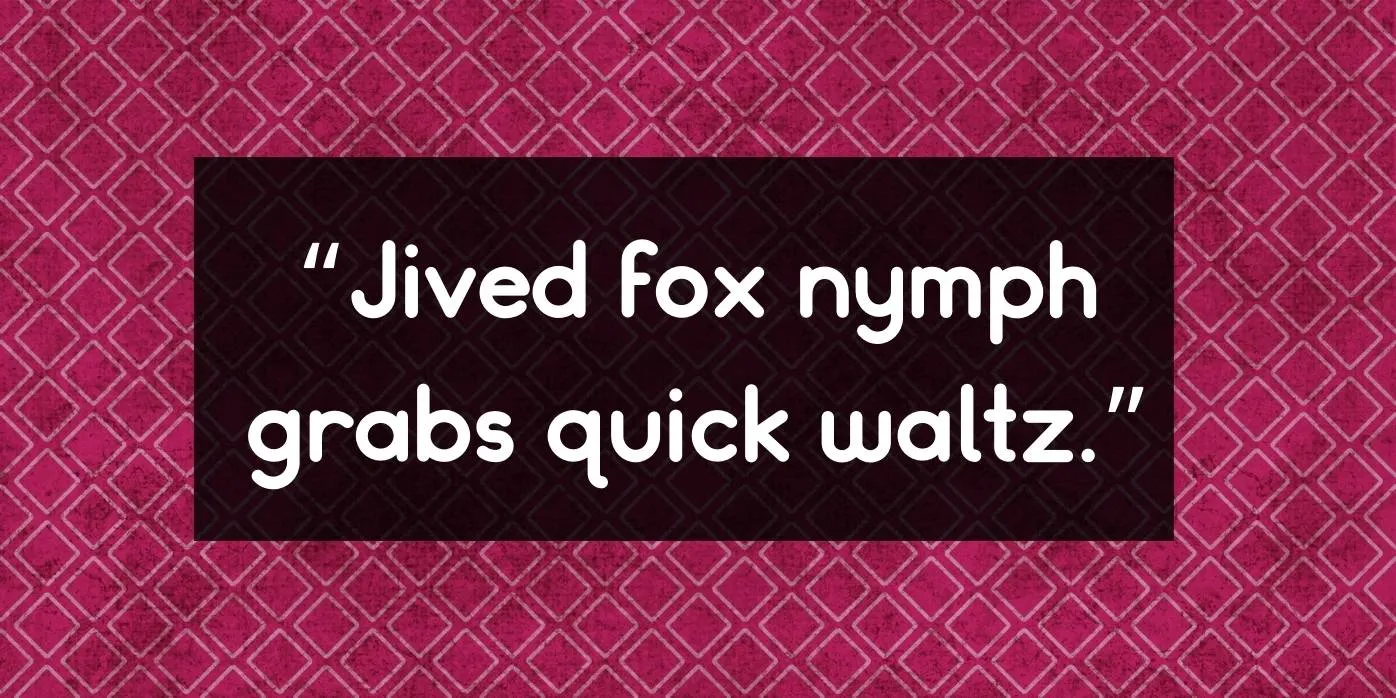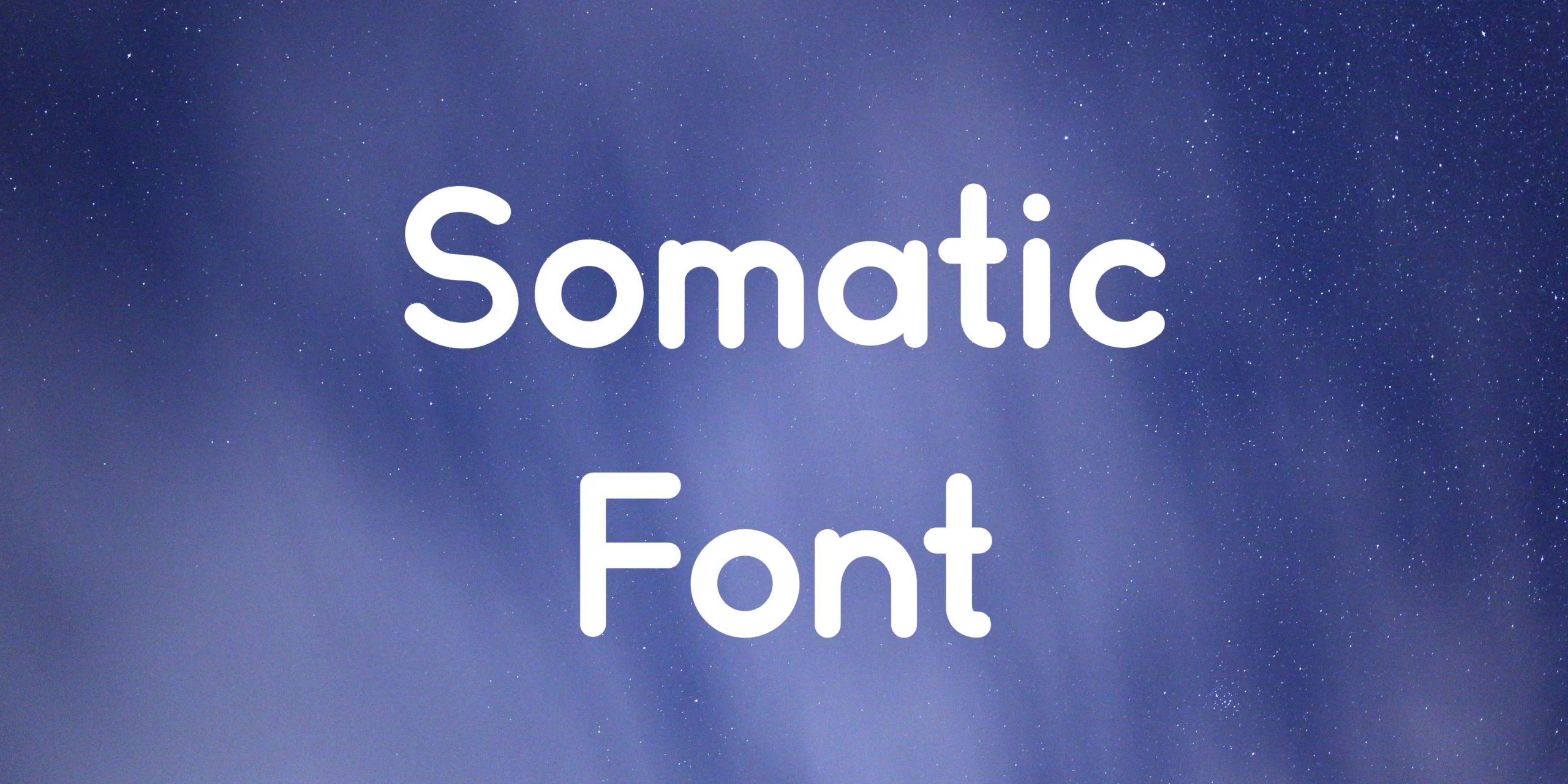
Somatic Font
Somatic Font is a famous typeface that belongs to the Sans-Serif typeface. This tremendous typeface was designed by Lauren Lee. It was released in the year 2013. The Somatic Font has a stylish look and it is perfect for any display type use.
This font contains more than 200 characters and supports many languages. Its strong styles and special Glyphs make it the best choice for headlines, posters, and other large displays where an attention-grabbing font is needed. It is different from all other typefaces. This typeface is best for different other programs like Adobe, Canva, and CorelDRAW.
You can also use its similar Tungsten font. It offers an old-fashioned look with a touch of modernity. The designer has used unique features to make Somatic Font look like it’s from another era. The result is a delightful display font that’s perfect for all kinds of projects.